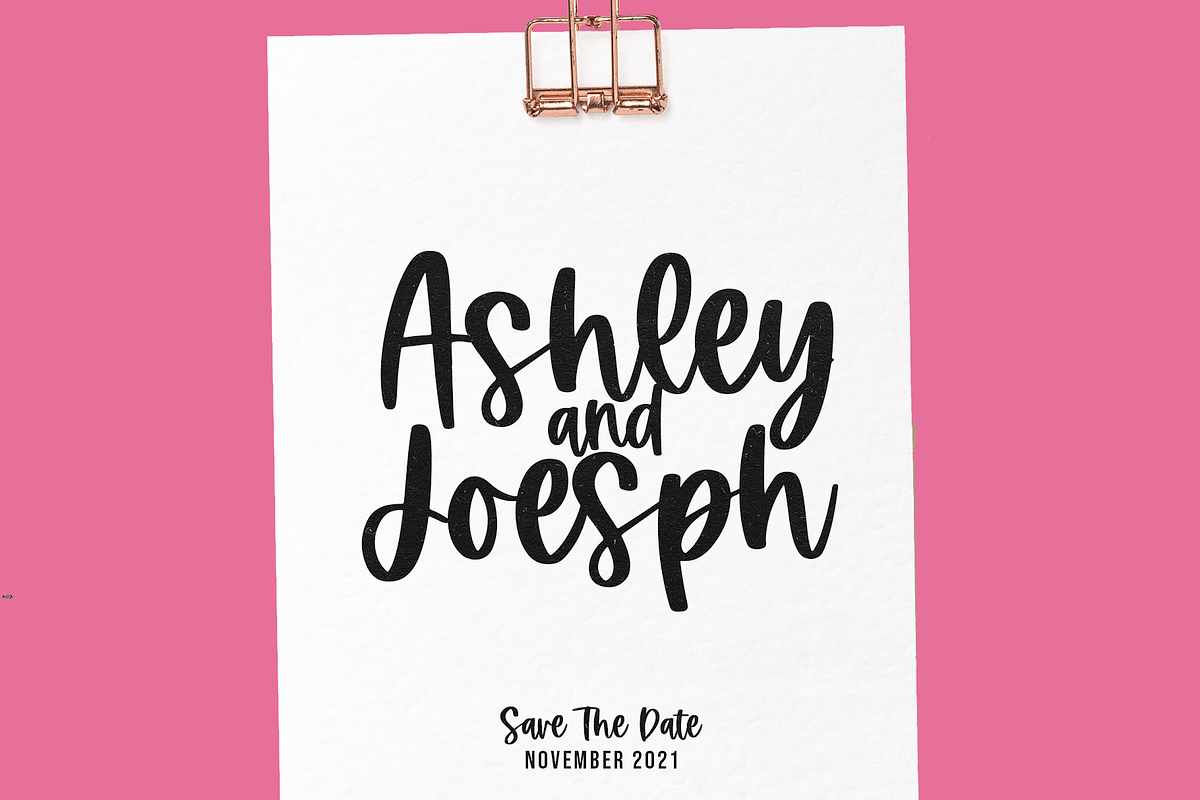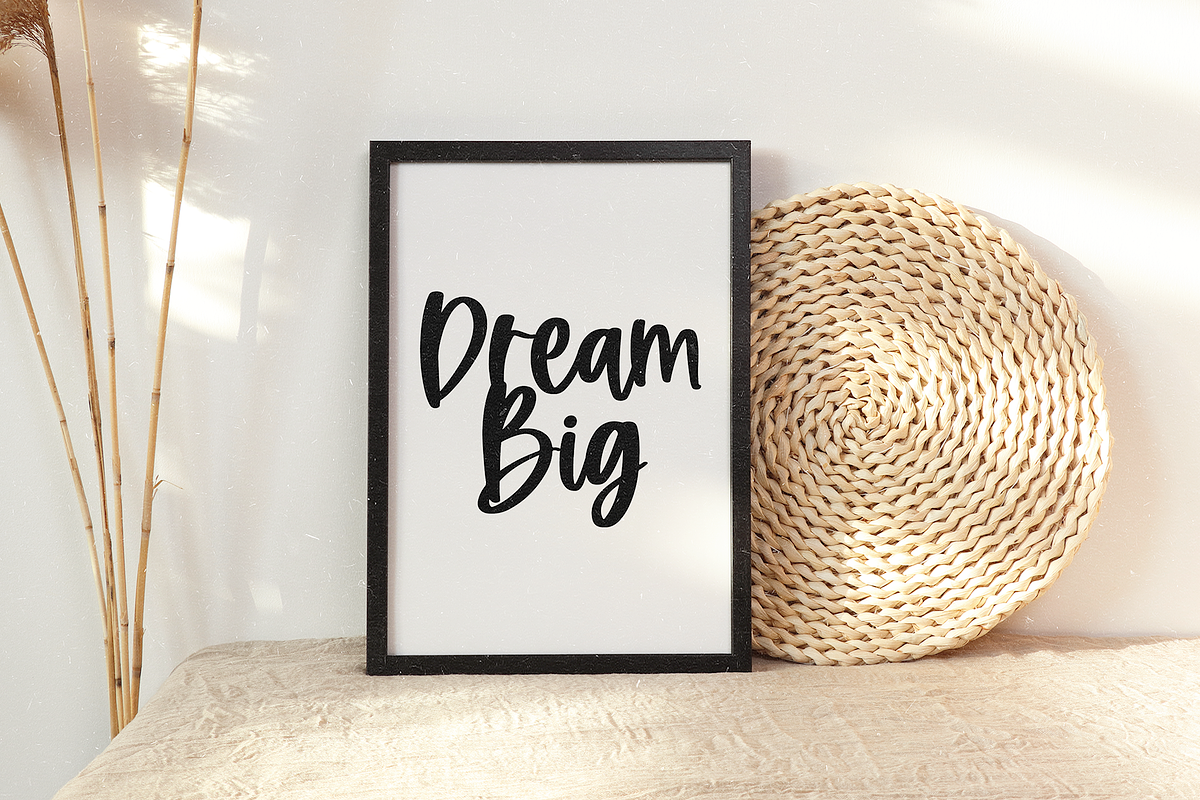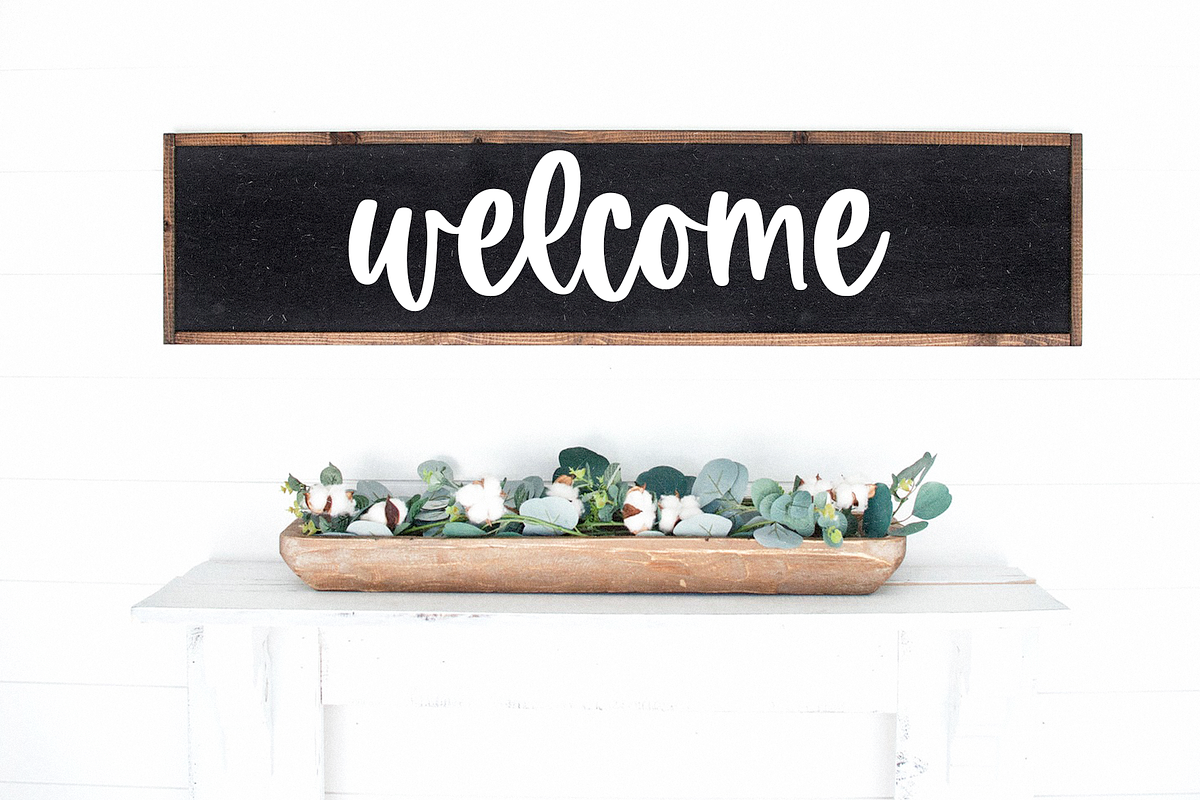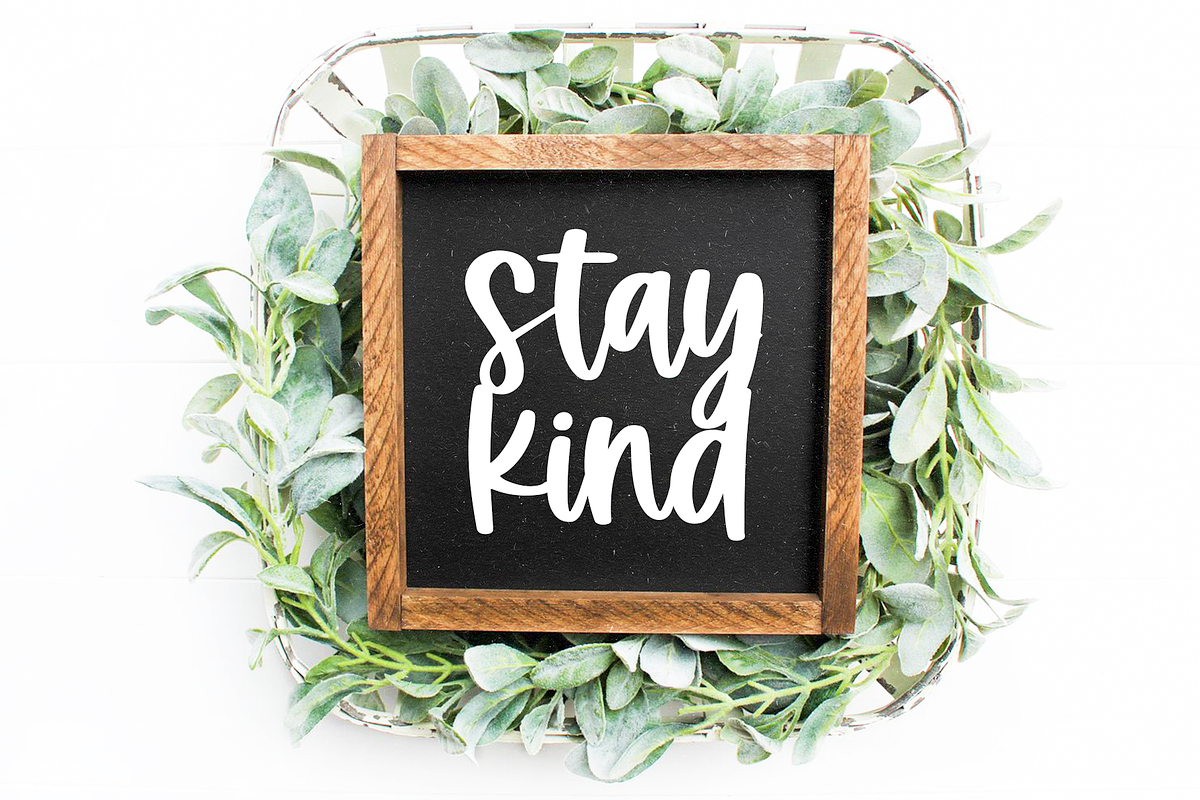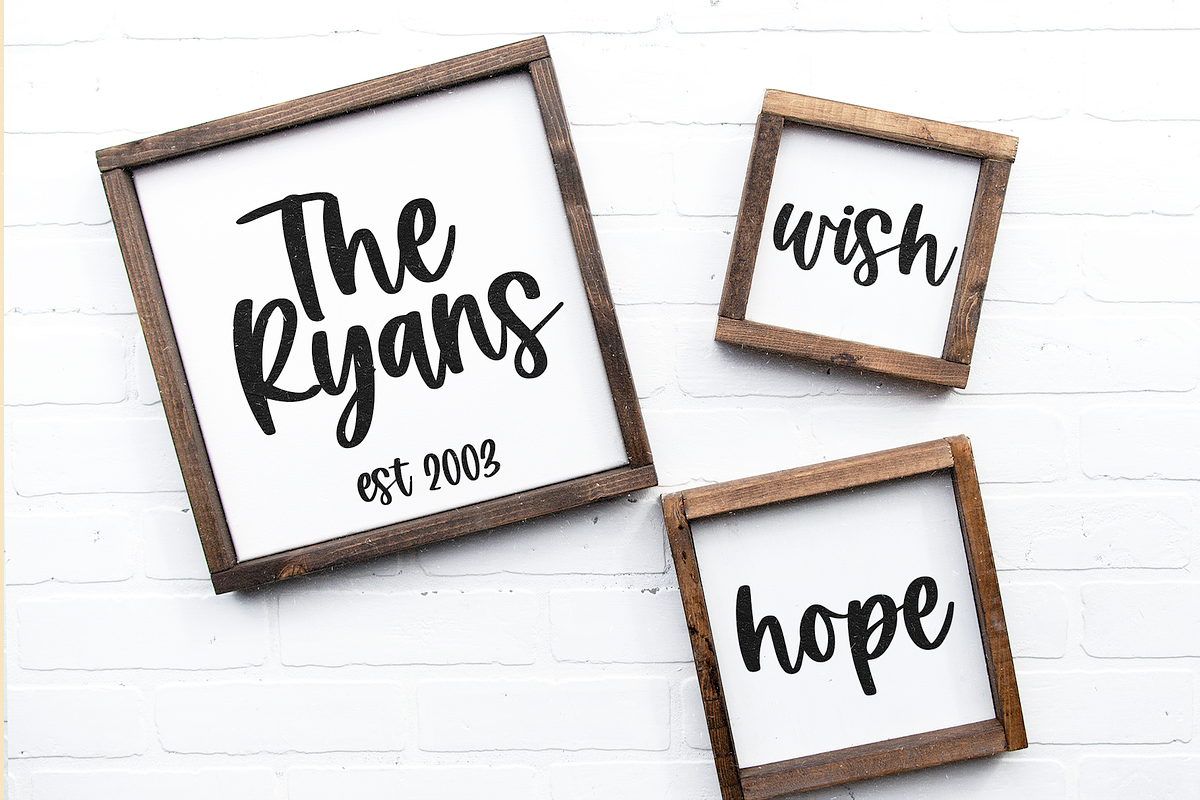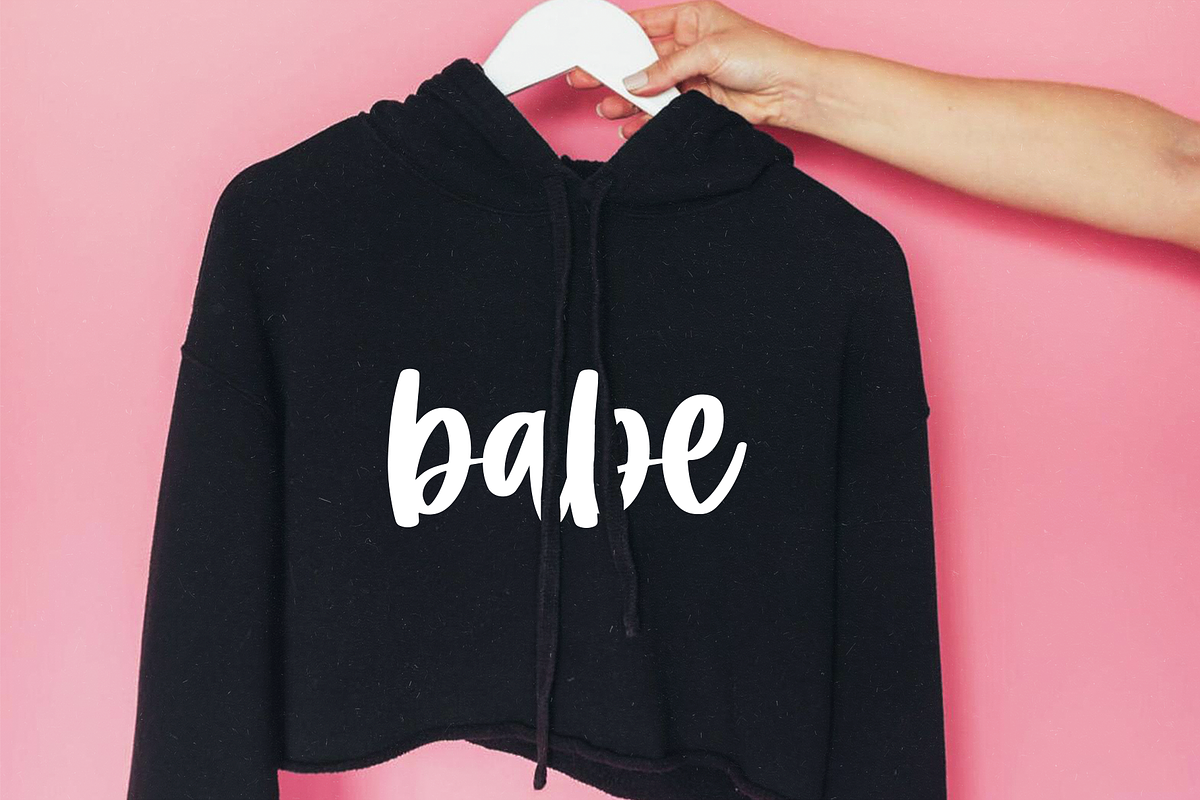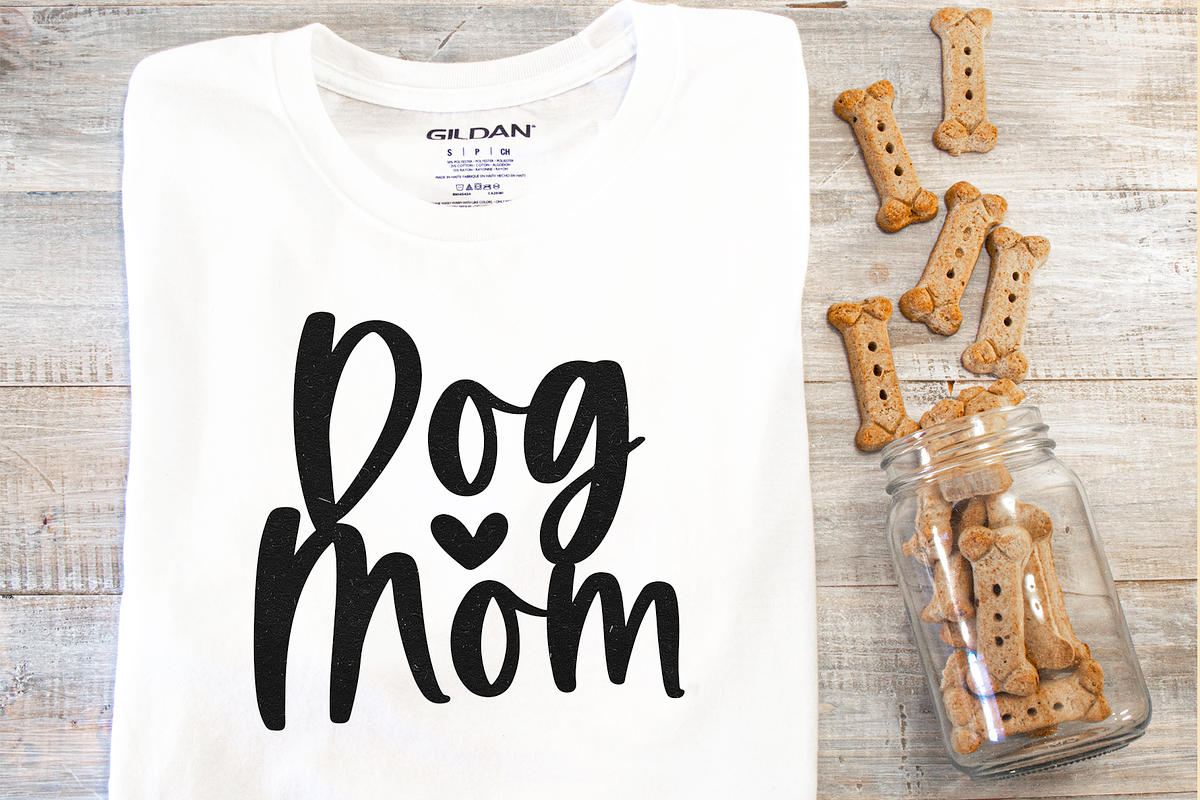
Honeybun | Handwritten Script Font
Honeybunis a cute handwritten script font!
This font is perfect for quotes, shirt designs, websites, branding, children's designs, blogs, logos, invitations and more!
- Most accent characters included.